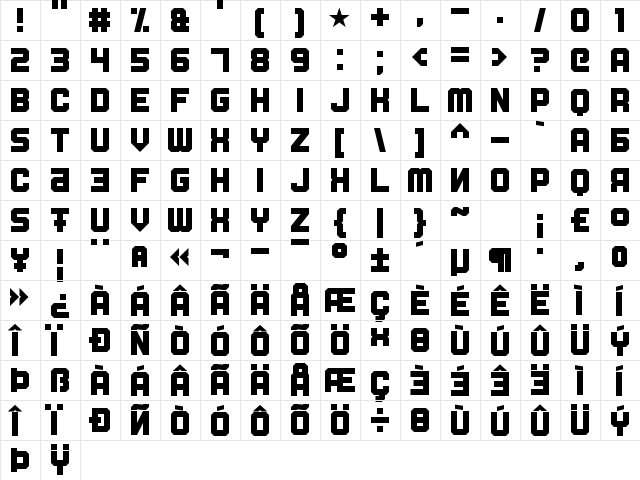
Fatherland Faker Regular Font Preview
Fatherland Faker Regular
Design Context for Fatherland Faker Typeface
Fatherland Faker is a composed and adaptable typeface that performs quietly and consistently across a wide range of design contexts.